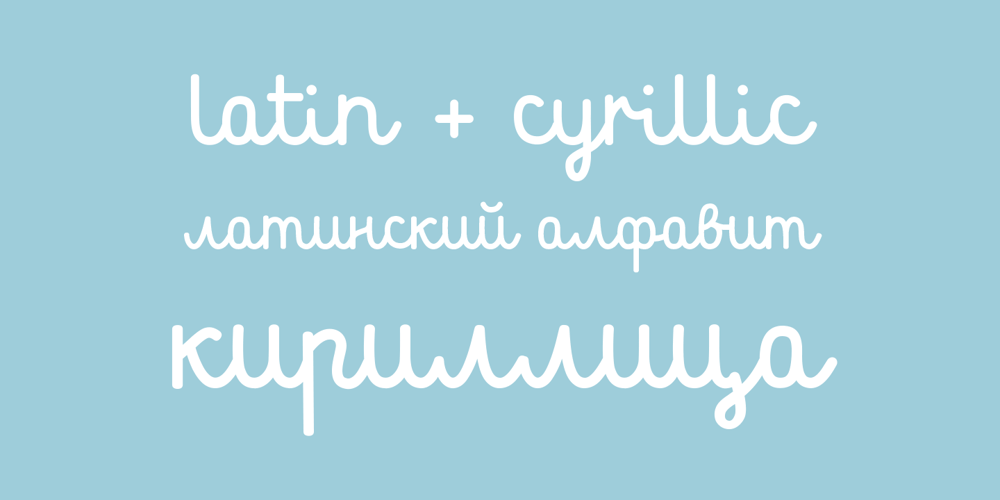
Mrs White Font Family was designed by Aleksandra and Daniel Mizielińscy and published by Hipopotam Studio. Mrs White contains 1 styles and family package options. We designed Mrs White for our next book for children. We needed a clean script that would give a feeling of a primary school handwriting. Mrs White is filled with ligatures and contextual alternates which gives her very smooth line of text. Scripts shouldn’t be used without lowercase letters so we added a small caps for headlines and acronyms. Check out the manual for more information on how to use Mrs White. Polish language use latin characters but we would like our Eastern neighbors to be able to enjoy Mrs White so we added cyrillic alphabet (script and caps).